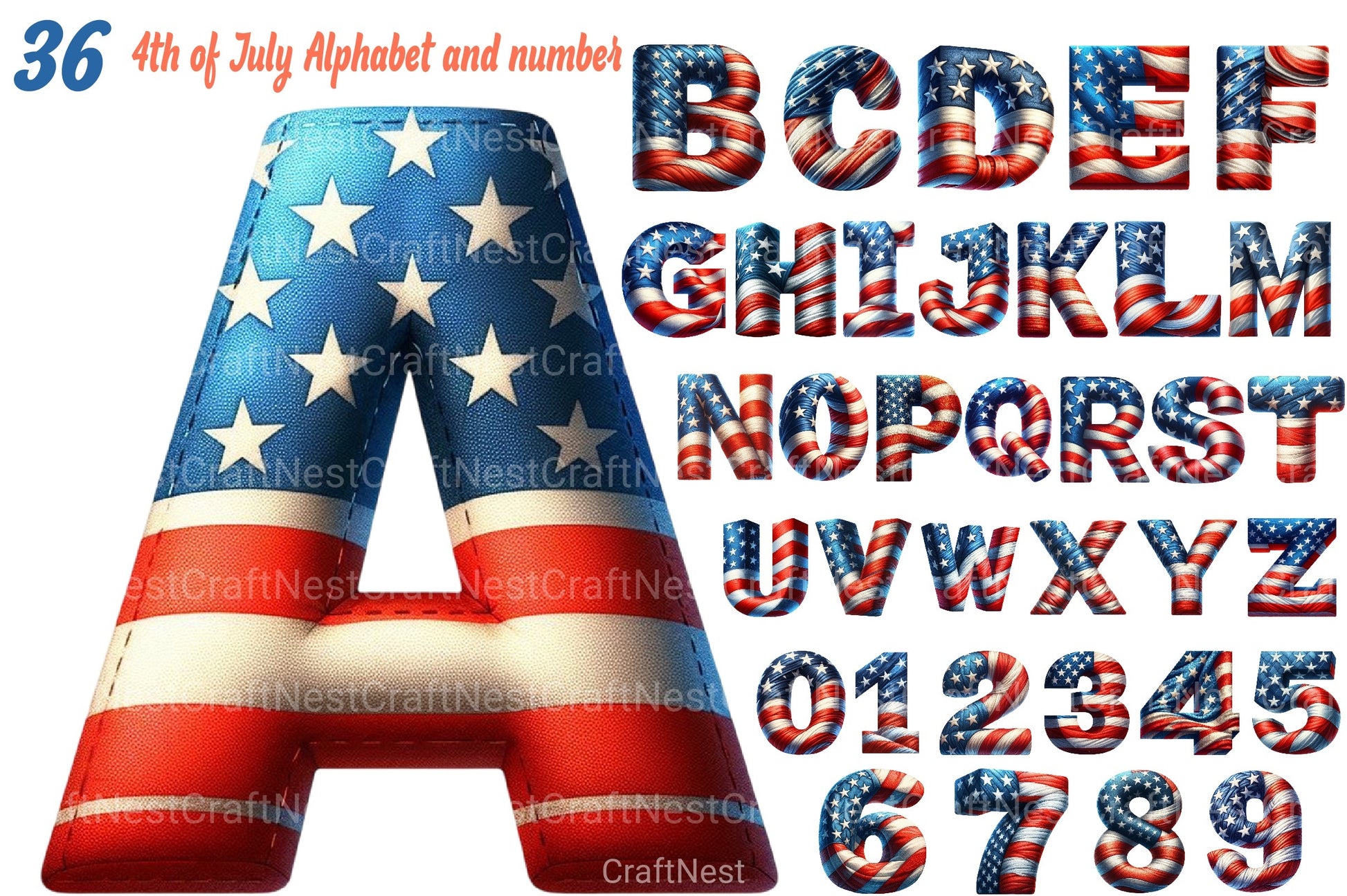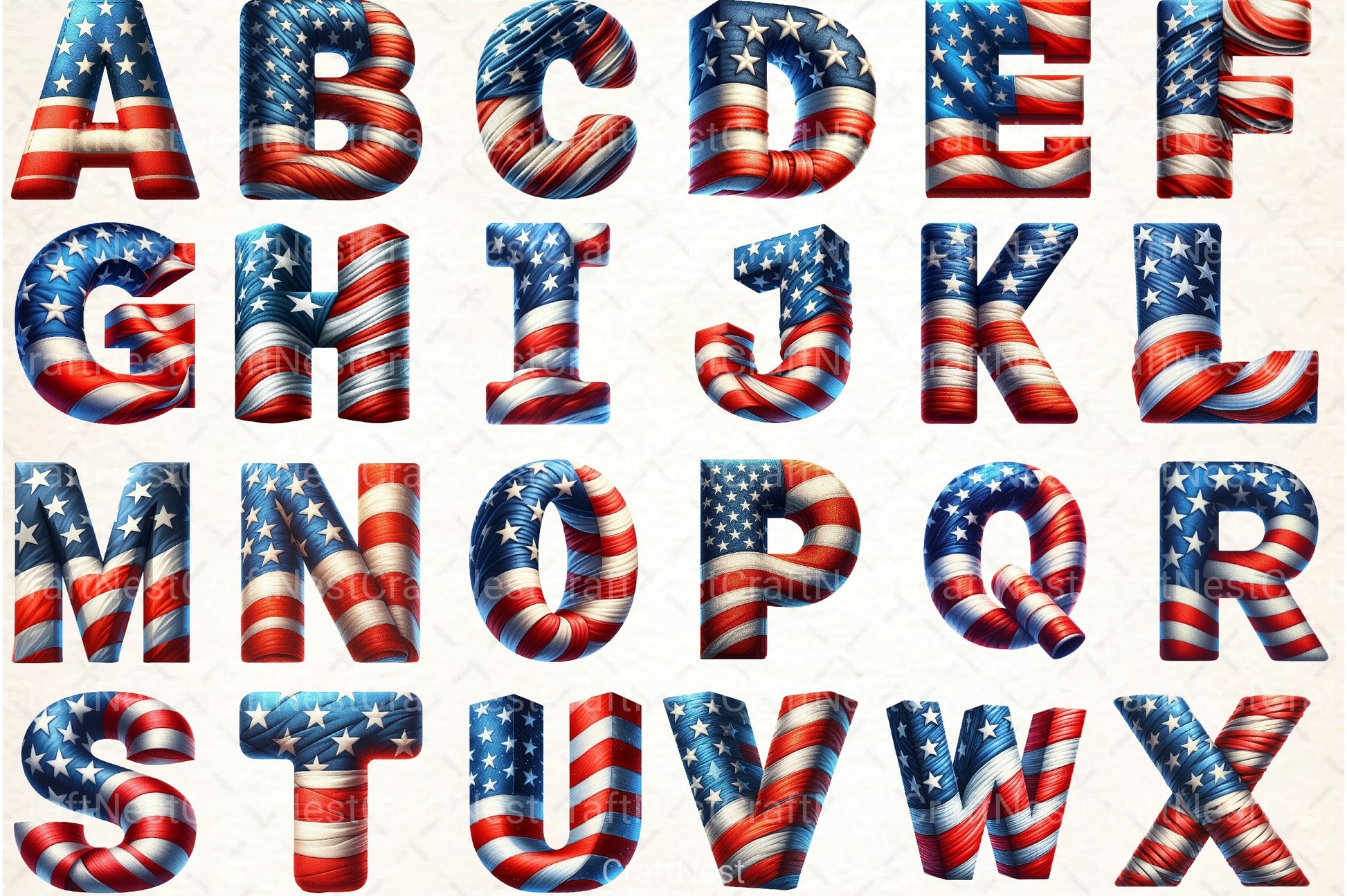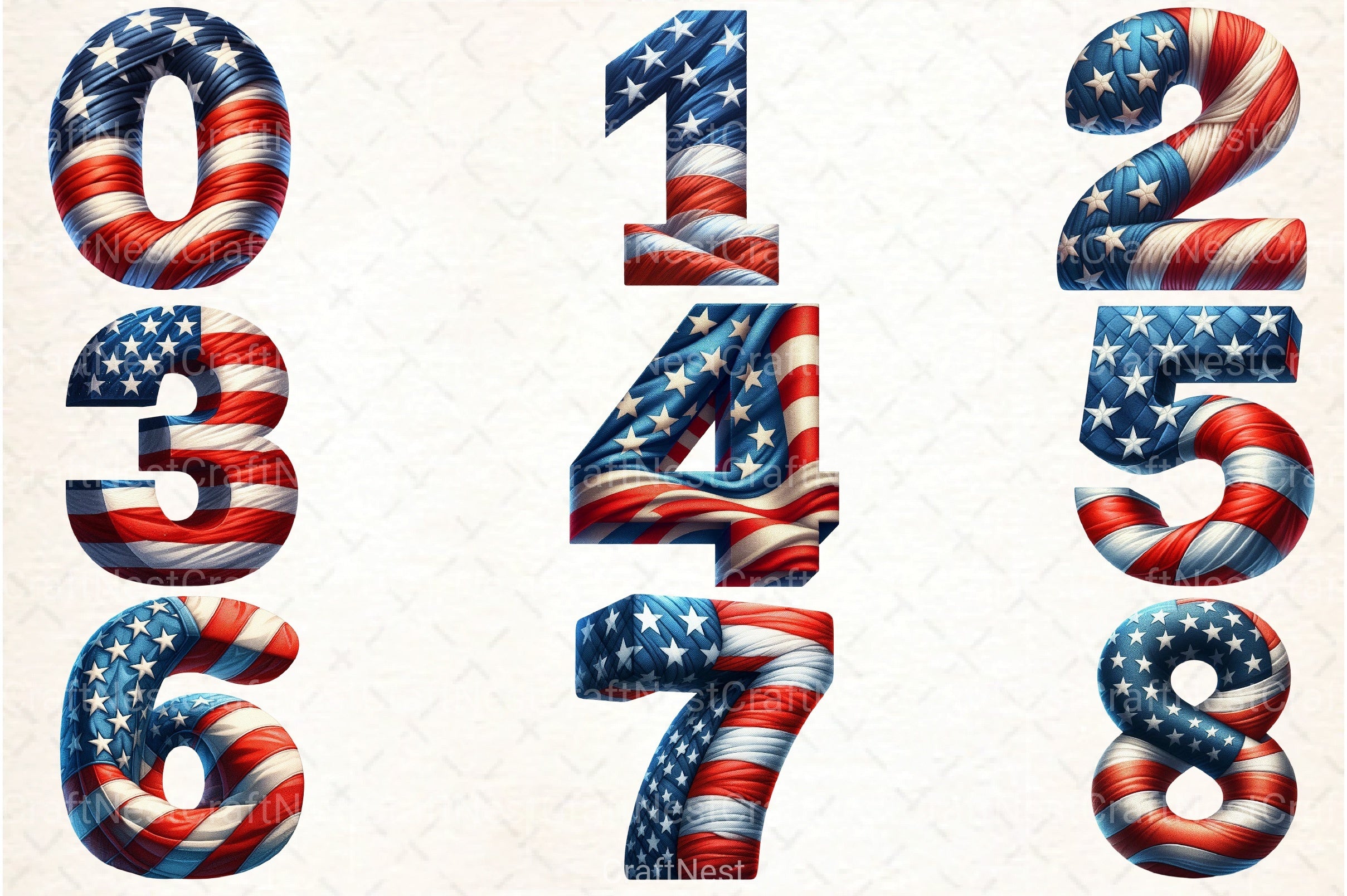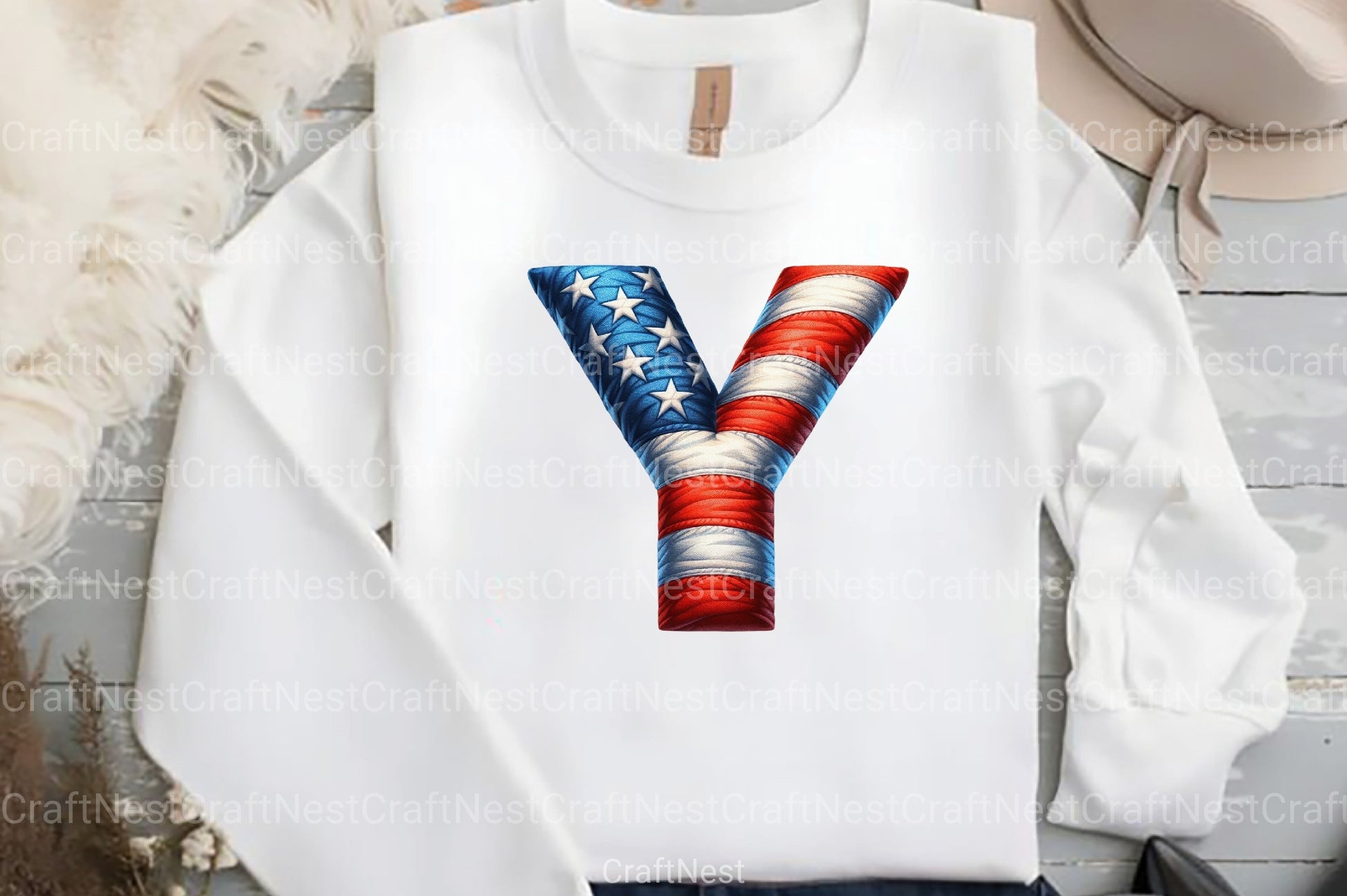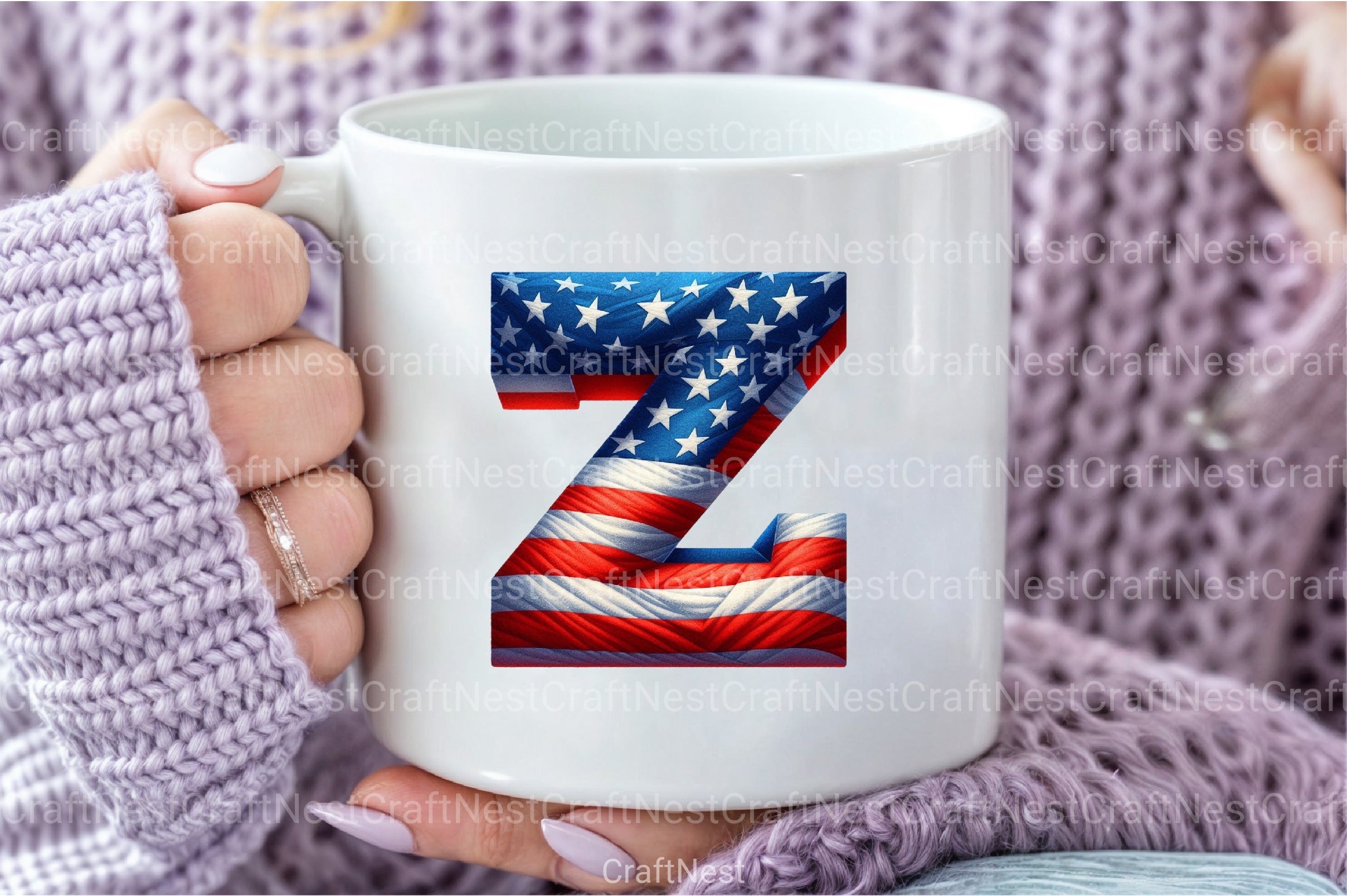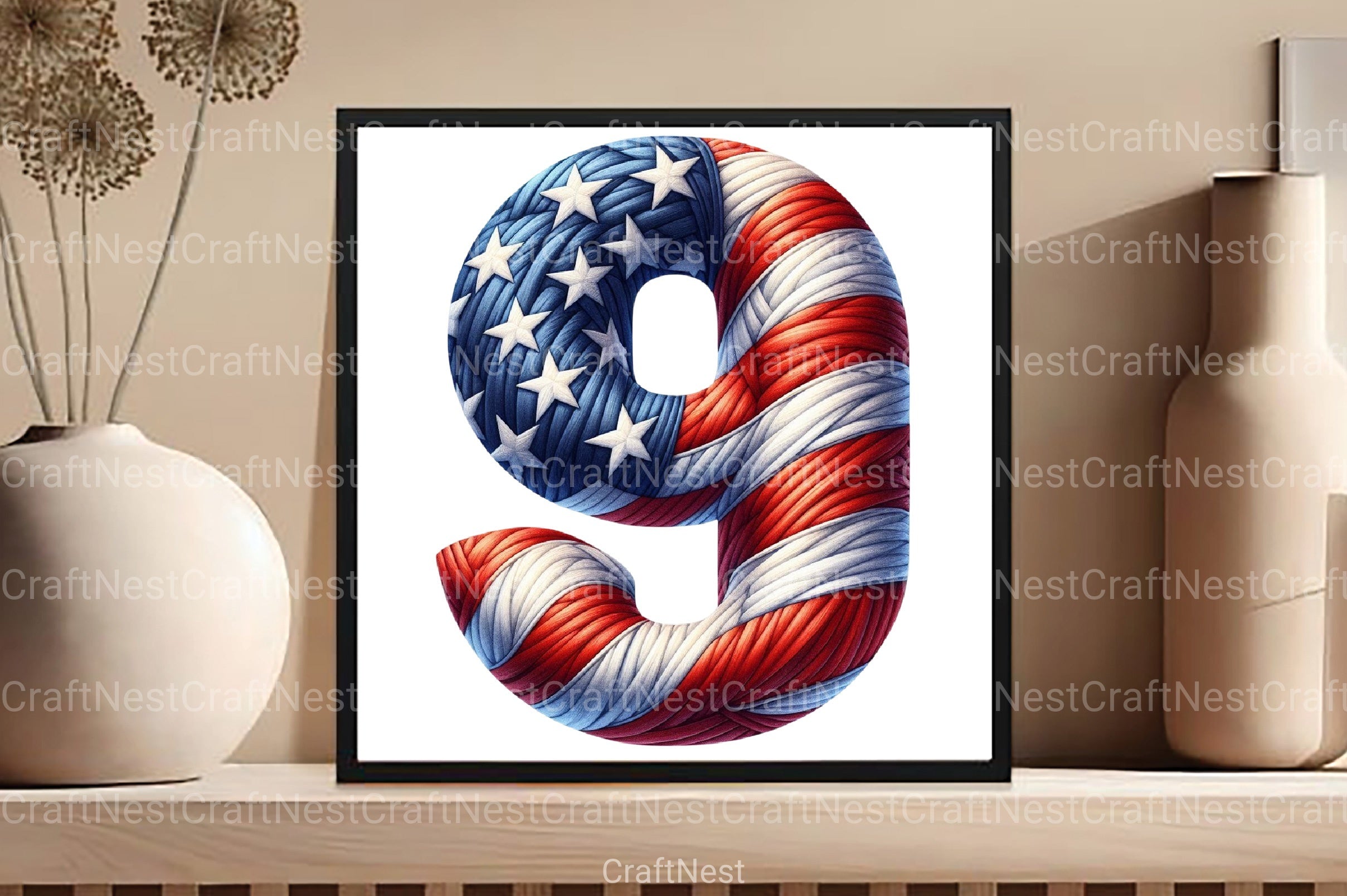
4th July Alphabet & Number Font Clipart Bundle
Celebrate Independence Day with our 4th July Alphabet & Number Font Clipart Bundle. Perfect for patriotic crafts, this bundle features vibrant red, white, and blue designs, ideal for creating festive banners, invitations, and more.